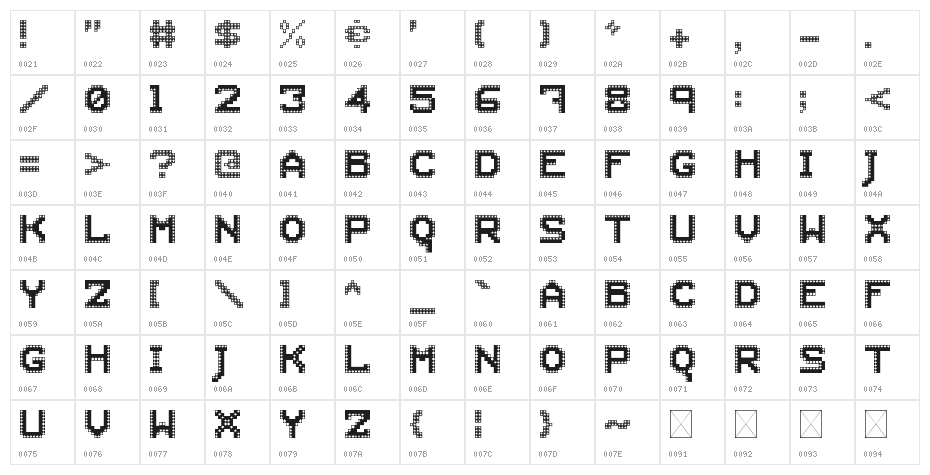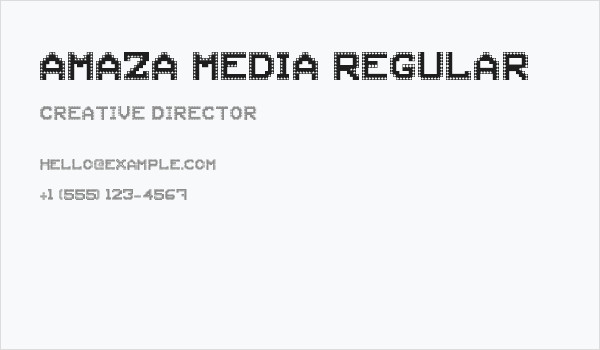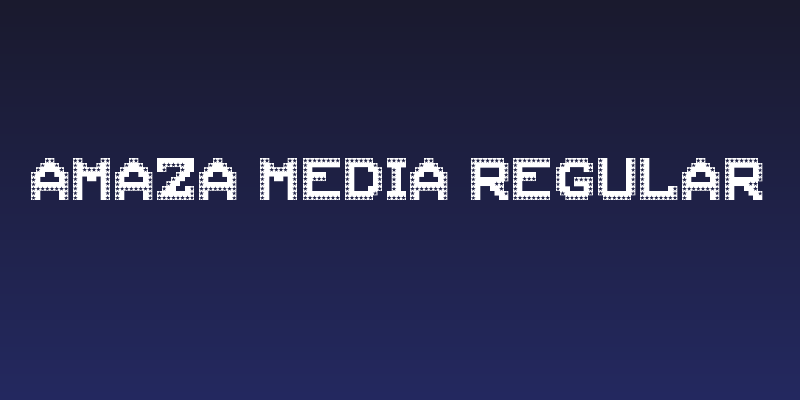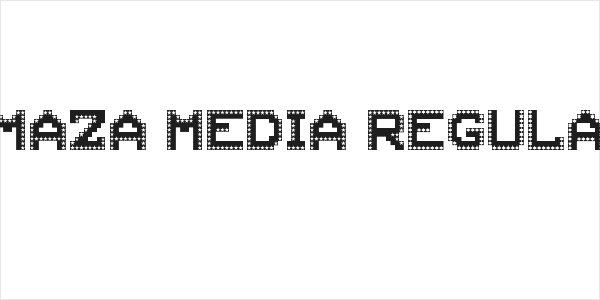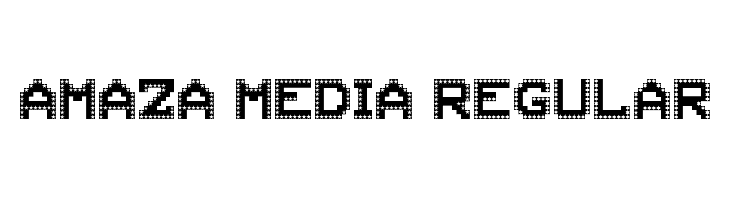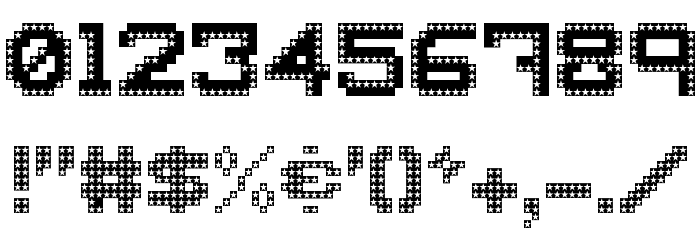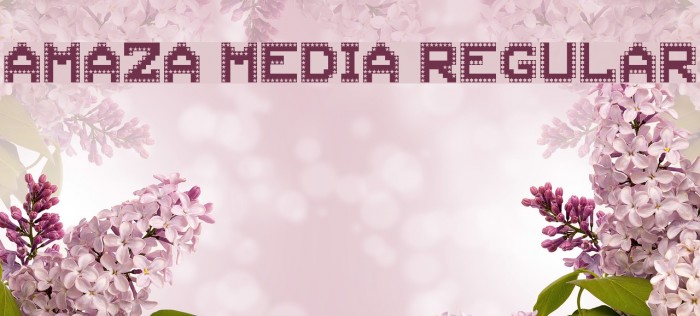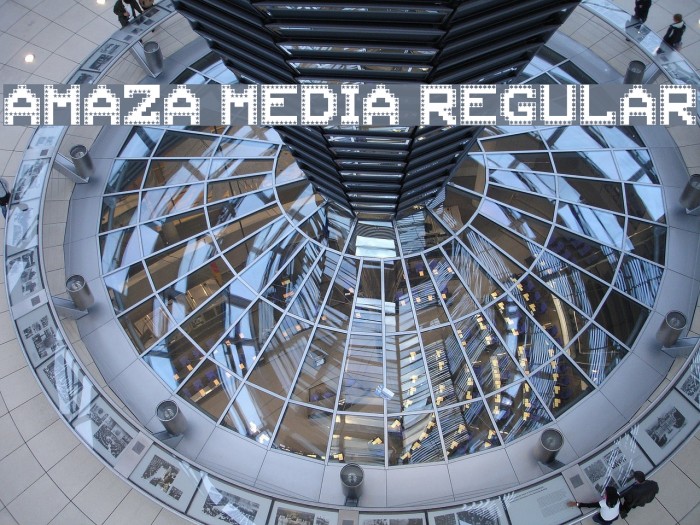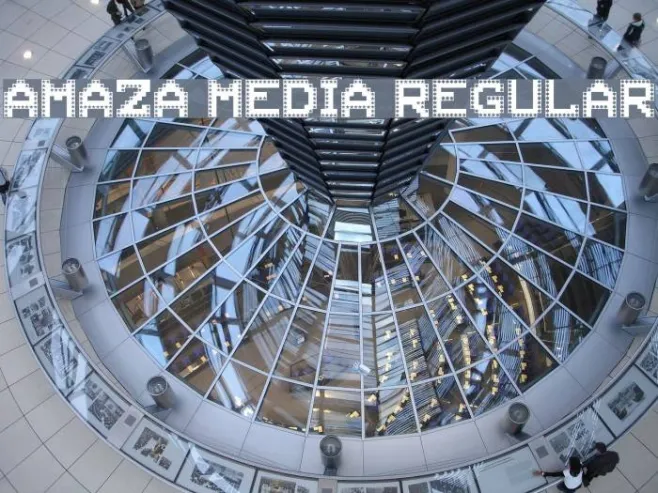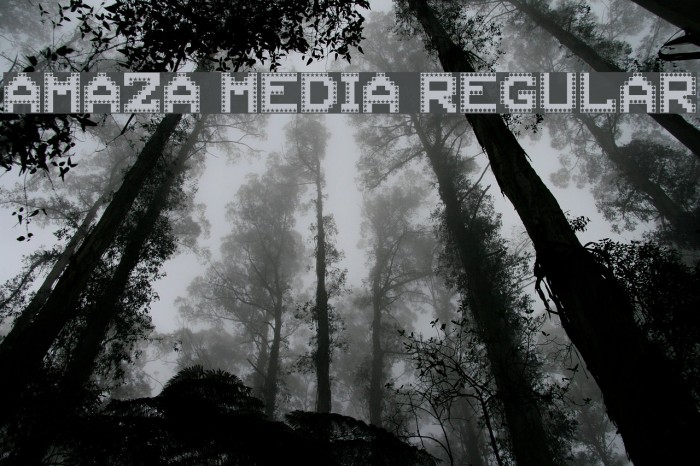
AMAZA MEDIA Regular Font
AMAZA MEDIA Regular Description
This font features a unique and playful design, characterized by its use of small star shapes to form each letter and number. The geometric structure is bold and eye-catching, making it ideal for decorative purposes. The uppercase and lowercase letters maintain a consistent style, ensuring readability while adding a whimsical touch. The numbers and special characters follow the same pattern, providing a cohesive look across all glyphs. This font is perfect for projects that require a fun and engaging aesthetic, such as children's books, party invitations, or playful branding.
| Proposed Projects | Children's books, party invitations, playful branding, posters, and creative digital content. |